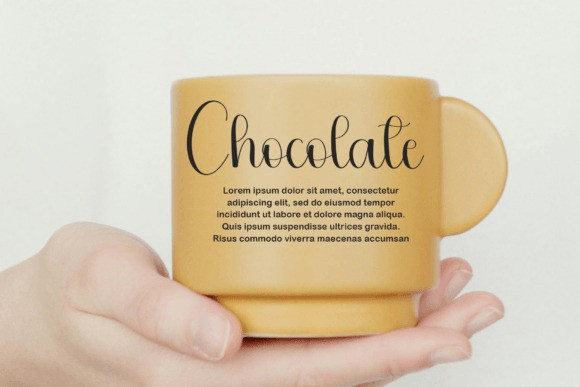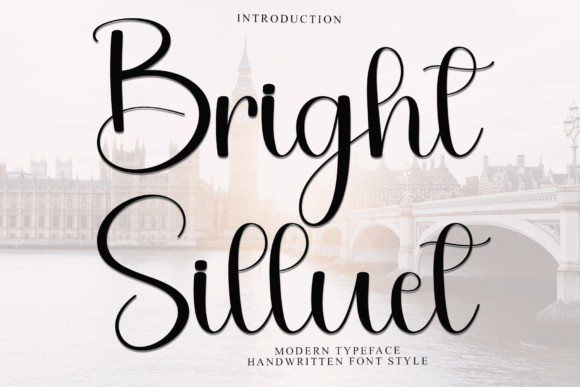
Bright Silluet Font
Bright Silluet Font is a lovely script font with smooth, flowing letters that look elegant and stylish. It’s perfect for invitations, logos, or any design that needs a touch of beauty and charm.